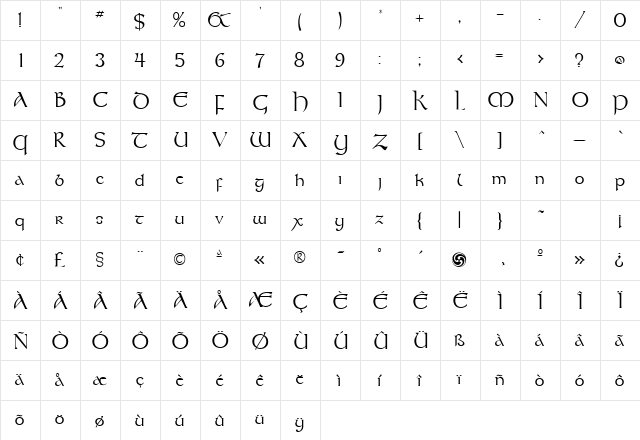
Umber SSi Regular
Design Context for Umber SSi Typeface
Umber SSi is a composed and adaptable typeface that performs quietly and consistently across a wide range of design contexts.